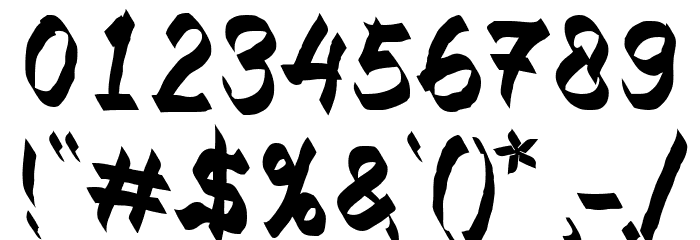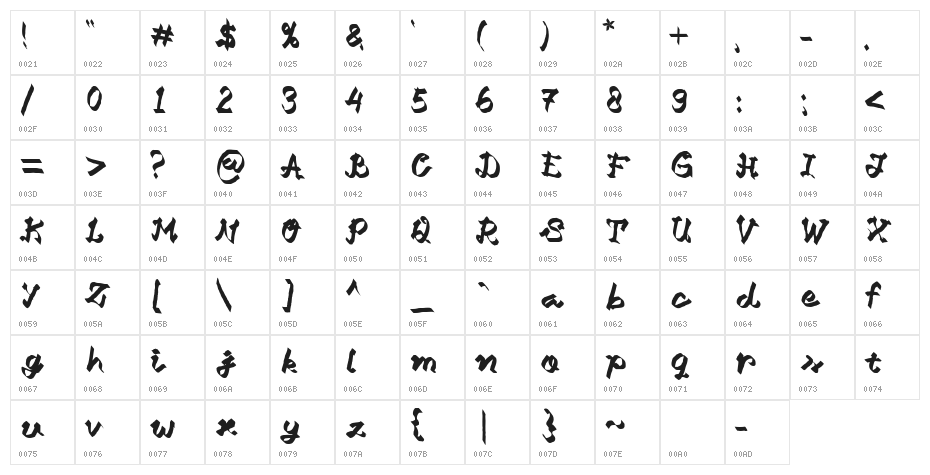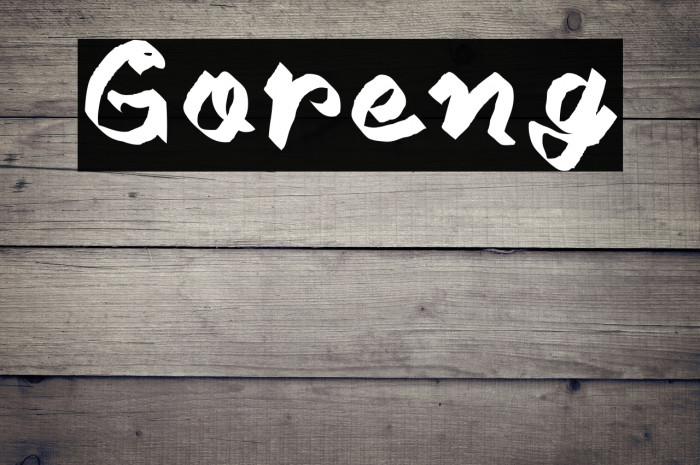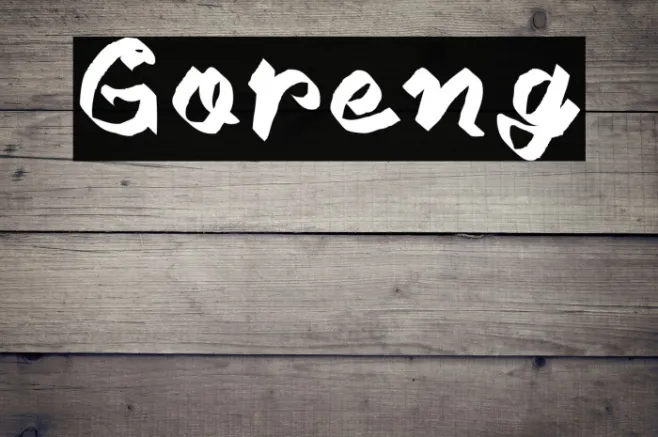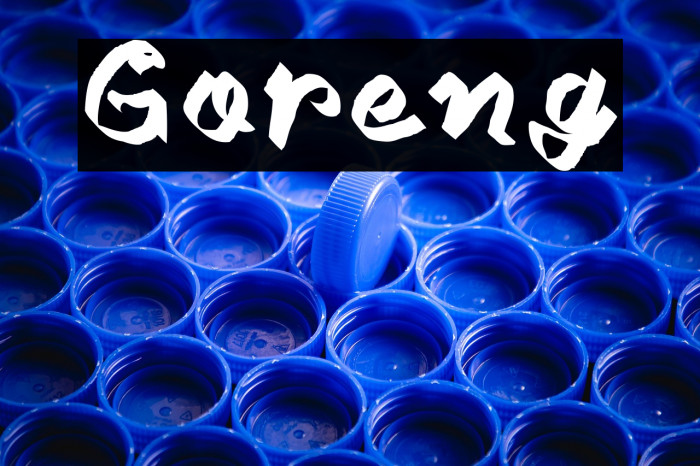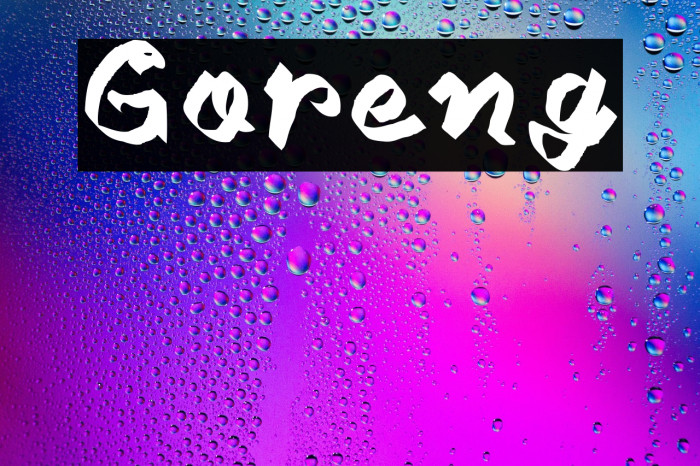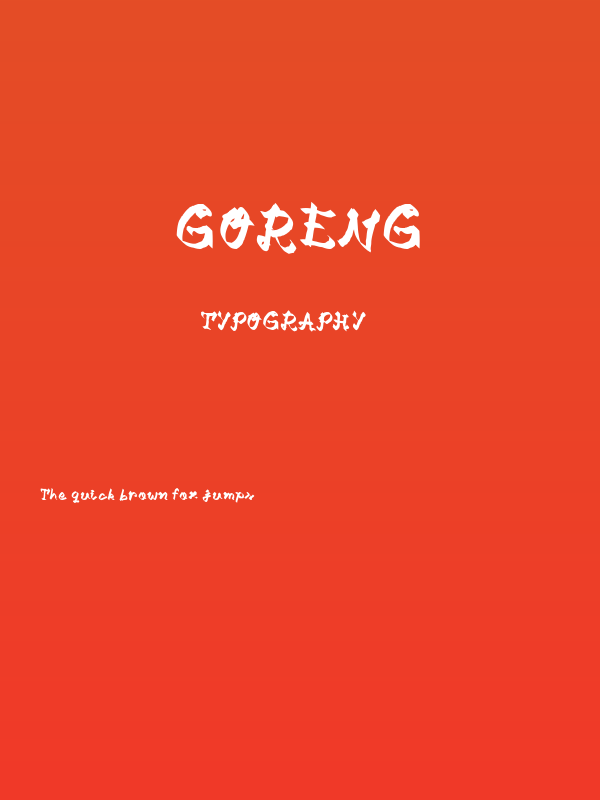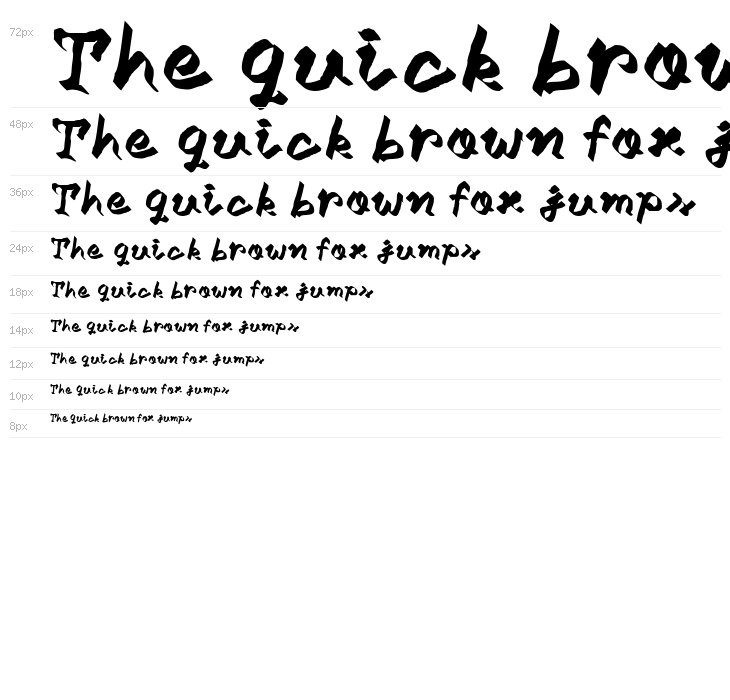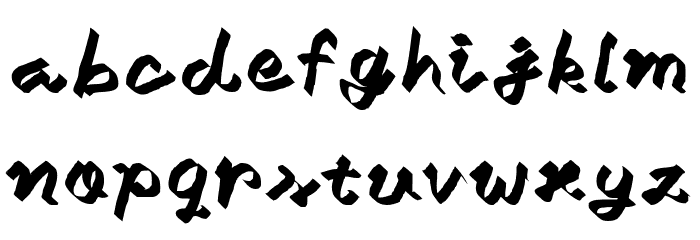
Goreng Font
Goreng Description
This font features a bold and expressive style with a handwritten appearance. The characters are crafted with a brush-like texture, giving them a dynamic and artistic flair. Each letter has a unique, slightly irregular shape, contributing to the overall organic feel. The uppercase and lowercase letters maintain a consistent style, while the numerals and special characters are equally bold and expressive. The font's design is reminiscent of calligraphy, with a modern twist, making it suitable for creative and impactful designs.
Overall StyleModern, Artistic
Proposed ProjectsIdeal for creative projects such as posters, album covers, branding, and artistic invitations.